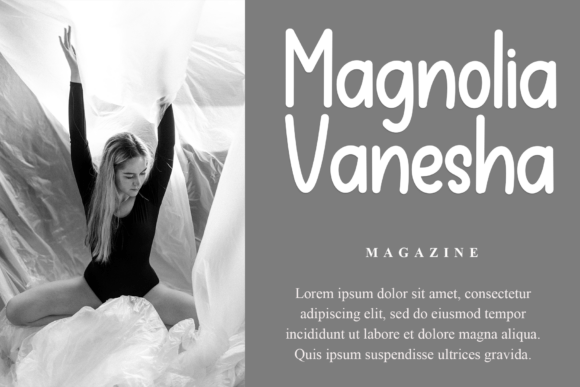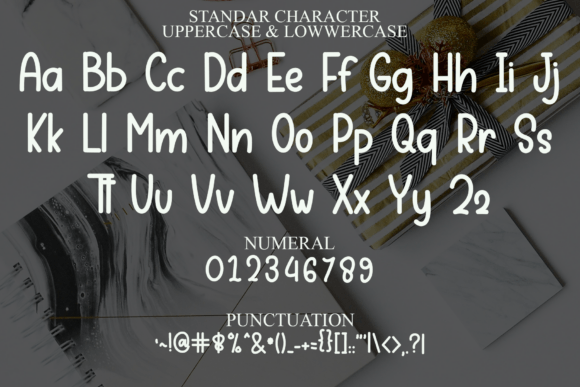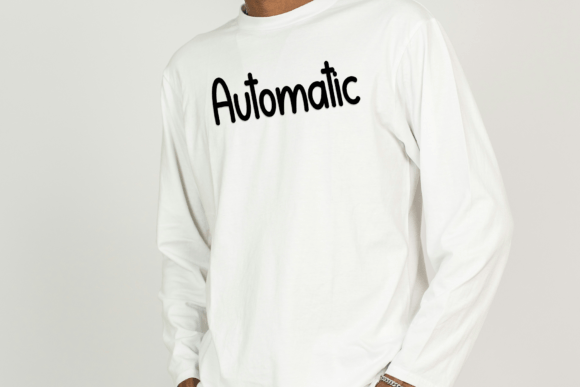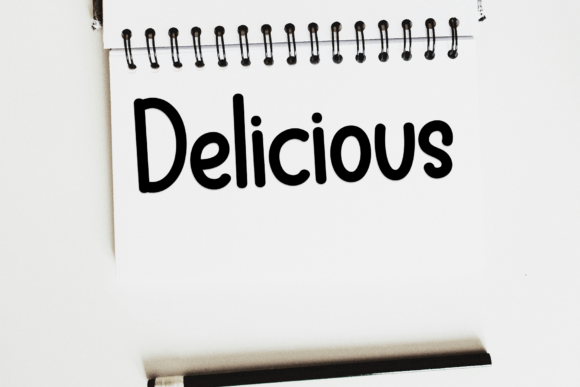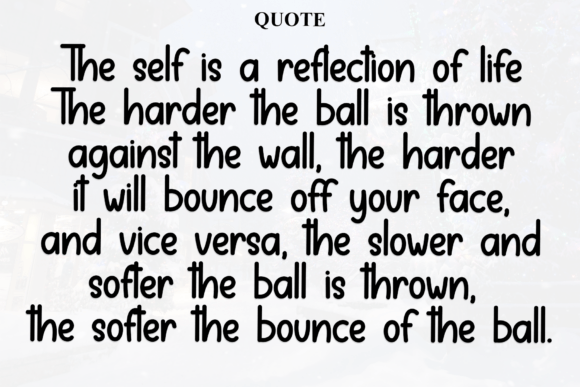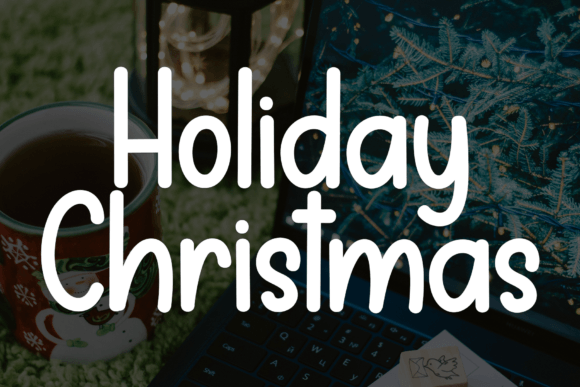
Introduction to Christmas Notebook Font
Christmas Notebook Is a beautiful and attractive font.
Its distinct and well balanced letters make this font a masterpiece Fall in love with its incredibly versatile style and use it to create spectacular designs.
Key Features of Christmas Notebook Font
Why Choose Christmas Notebook Font?
Christmas Notebook Font offers exceptional quality and versatility, making it a valuable addition to your design toolkit. Whether you’re creating for personal projects or commercial use, Christmas Notebook Font delivers professional results.